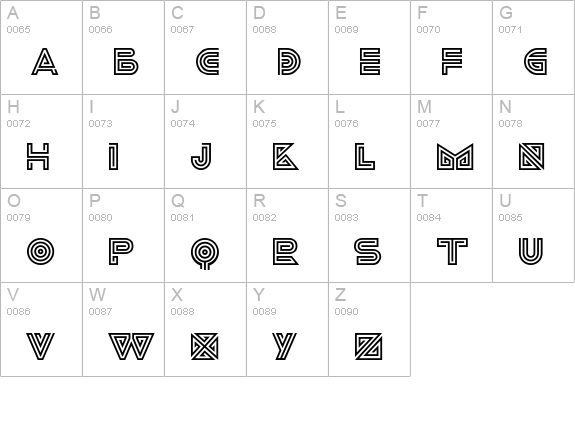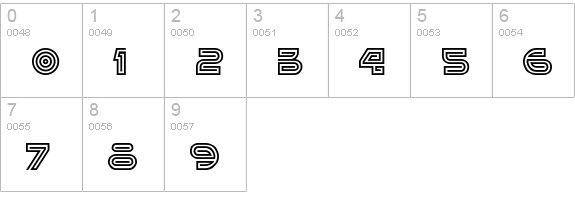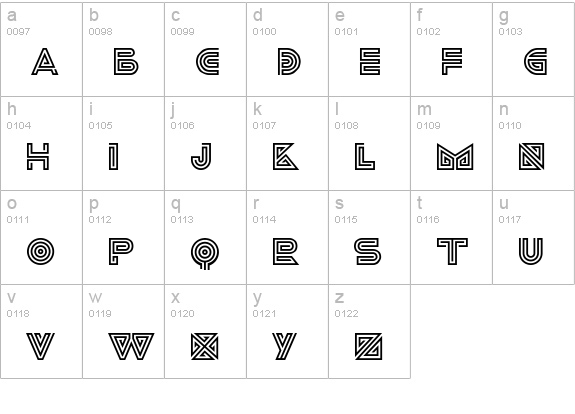
ideoma LINER Font Details
The ideoma LINER font is a visually stunning and highly versatile typeface that is sure to captivate and inspire. With its sleek lines and modern design, this font offers a contemporary touch to any project it is used in. What sets ideoma LINER font apart is its unique ability to convey a sense of elegance and sophistication. It exudes a subtle yet powerful presence, making it perfect for a wide range of applications such as branding, advertising, and editorial design. One of the most remarkable aspects of the ideoma LINER font is that it is available for free. Yes, you read that right - this extraordinary font can be freely downloaded from FontsMarket.com, allowing designers and creatives to access its beauty and potential without any cost. With its extensive character set, including uppercase and lowercase letters, numbers, and a variety of punctuation marks, ideoma LINER font provides endless possibilities for customization and creativity. Whether you're designing a logo, creating a poster, or crafting a magazine layout, this font will effortlessly elevate your work to new heights. The smooth and clean lines of ideoma LINER font ensure legibility at any size, making it equally suitable for both print and digital projects. Its versatility extends to various design styles, from minimalistic and modern to bold and expressive, making it a perfect choice for designers seeking a font that can adapt to their creative vision. So why wait? Experience the beauty and versatility of ideoma LINER font today by downloading it for free at FontsMarket.com. Enhance your designs with this exceptional typeface and let your creativity shine through.